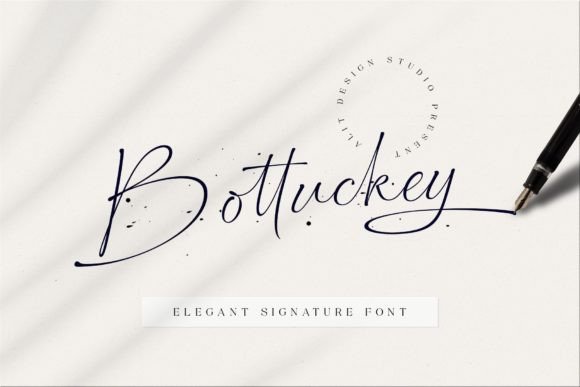
Introducing Bottuckey Font, an exquisite script font family that'll leave you breathless. Its delicate strokes, elegant curves, and flowing design bring a touch of grace and sophistication to any project. Crafted by the skilled hands of Alit Design, Bottuckey is a visual masterpiece that's sure to ignite your creativity.
With Bottuckey, your designs will dance with a new energy. Its beautiful and well-balanced characters harmoniously blend together, creating a symphony of visual delight. Whether you're designing logos, branding materials, invitations, or any other creative endeavor, Bottuckey will elevate your work to new heights.
Unlike ordinary fonts, Bottuckey is PUA encoded, unlocking a world of possibilities. Access all glyphs and swashes with effortless ease, adding an extra layer of charm and uniqueness to your designs. Unleash your imagination and explore endless creative avenues with Bottuckey.
Don't settle for mundane fonts that blend into the background. Embrace the captivating allure of Bottuckey and watch your designs transform into mesmerizing works of art. Its timeless elegance and versatility make it the perfect choice for any project that demands a touch of sophistication and creativity.
Immerse yourself in the world of Bottuckey, where beauty and functionality intertwine. It's the perfect font for adding a personal touch to your signature block, creating enchanting invitations, or crafting stunning logos that leave a lasting impression.
Don't let mediocrity define your designs. Choose Bottuckey and elevate your creativity to new realms. Its delicate strokes and elegant flow will captivate your audience, leaving them in awe of your design prowess.